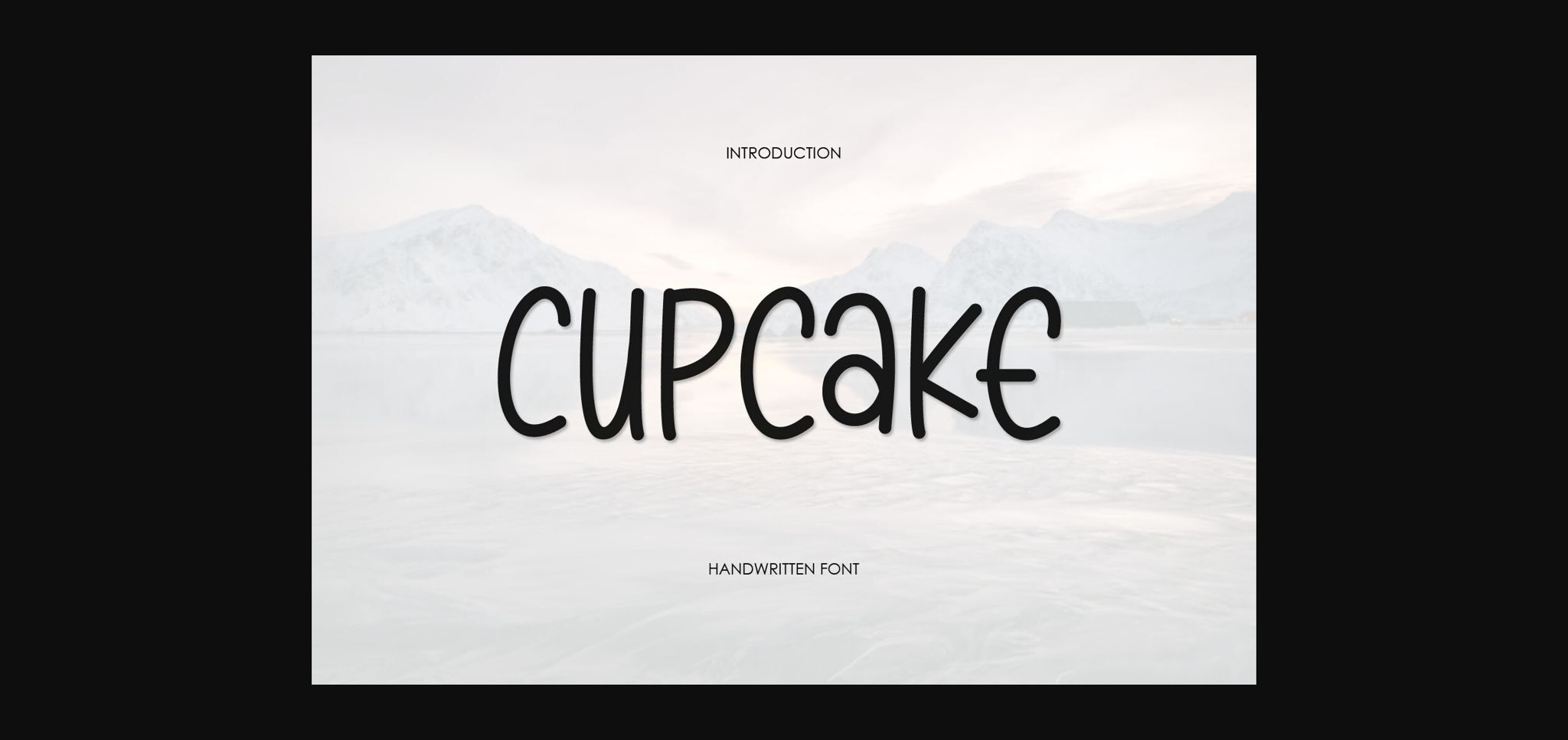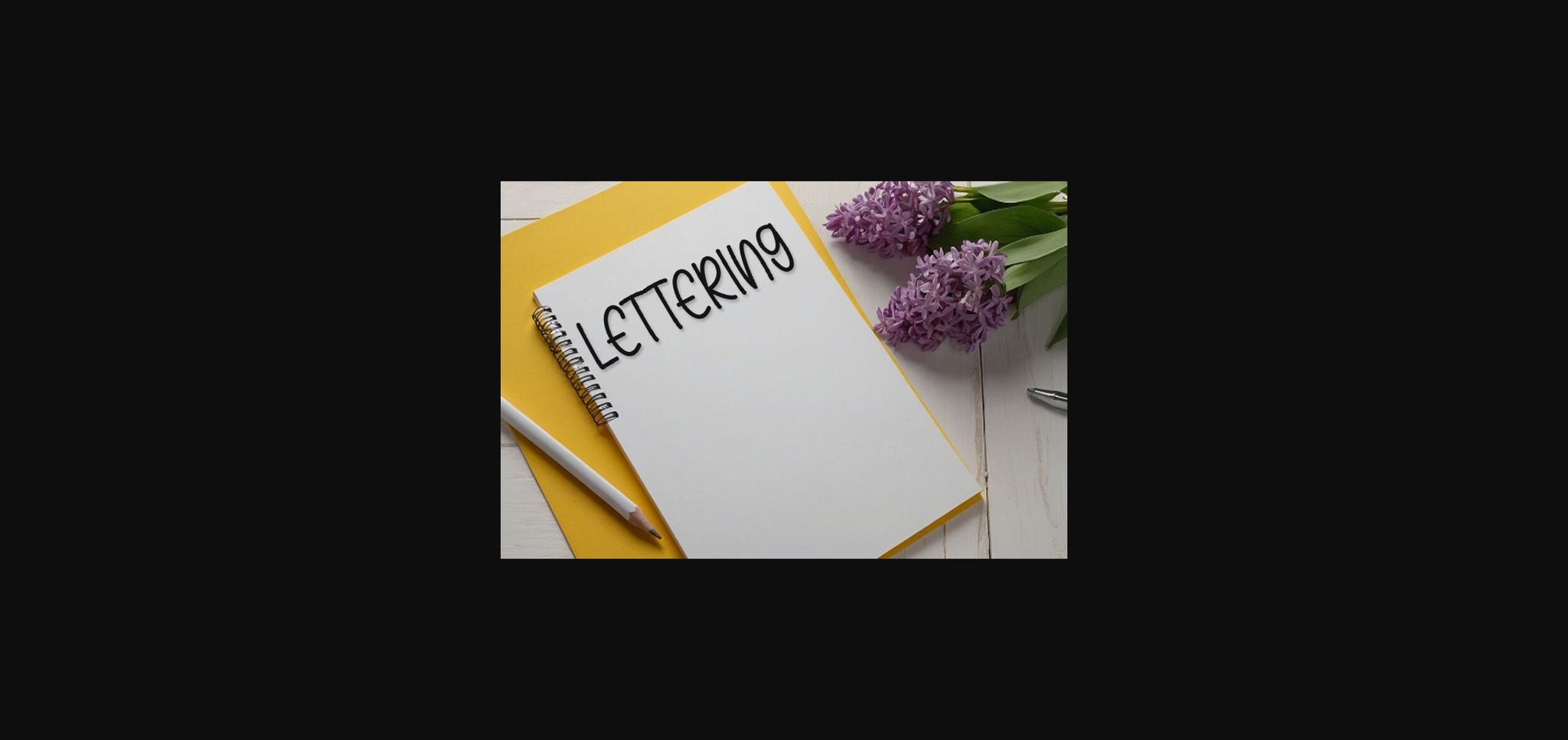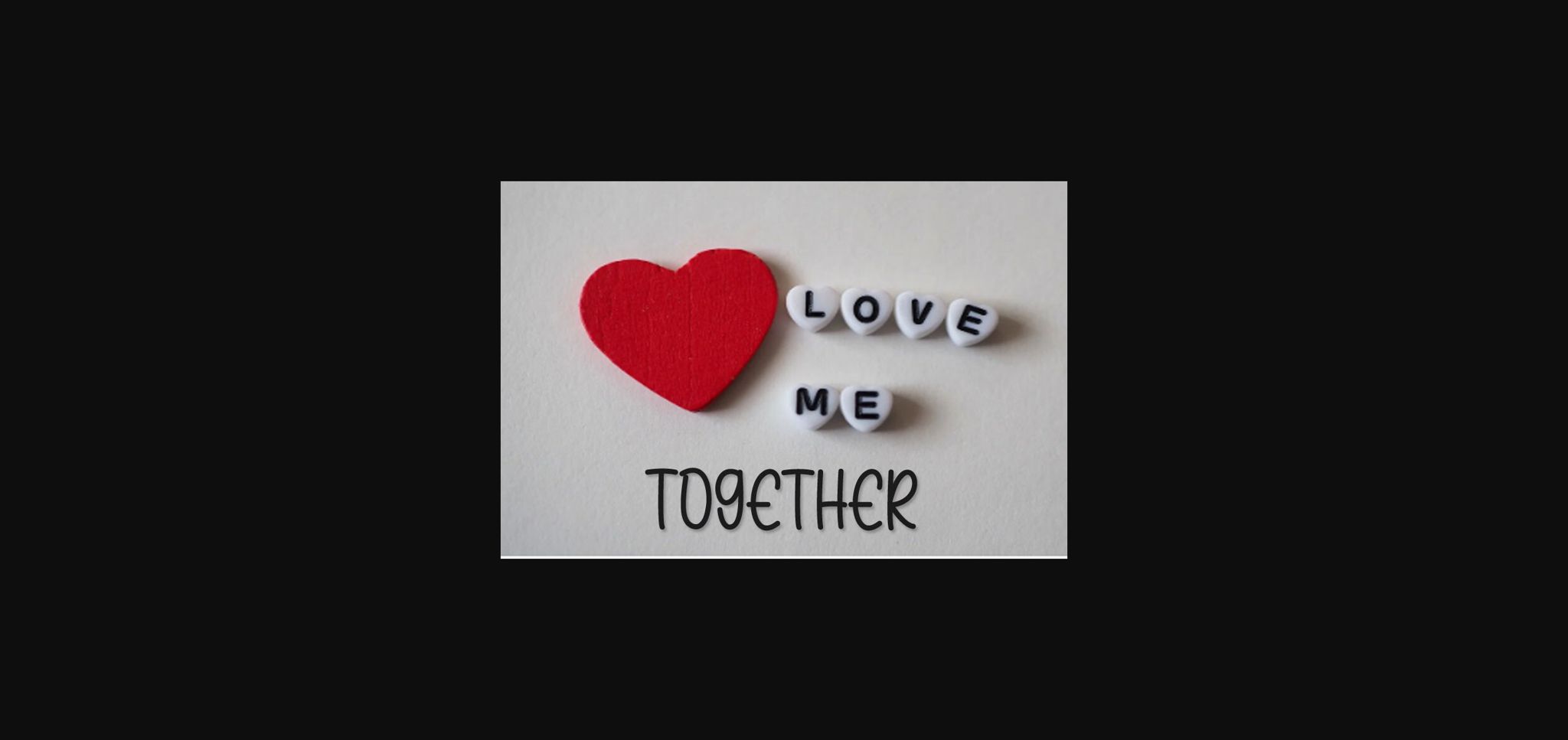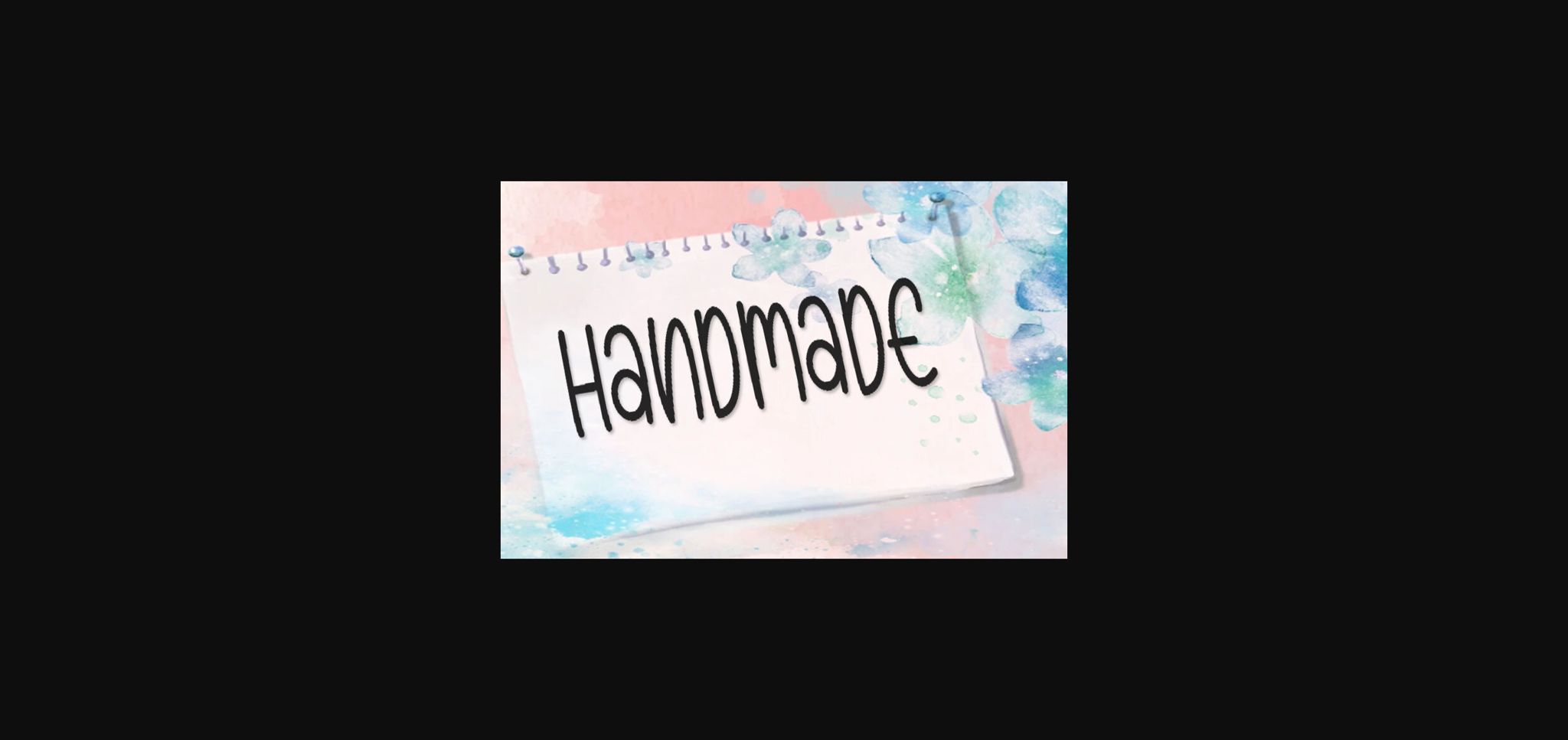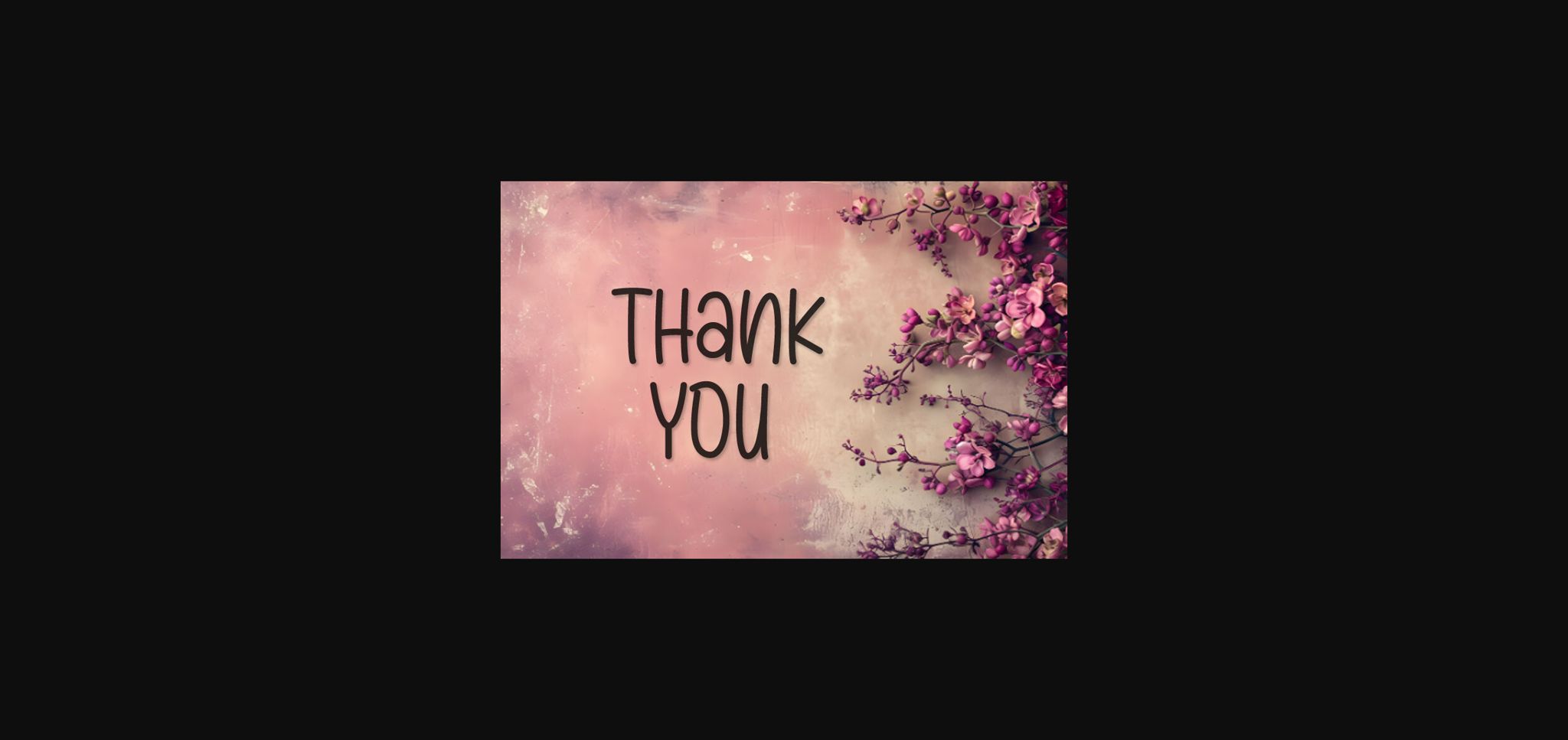
HomeSans Serif FontsCupcake Font Sans Serif Fonts Cupcake Font FacebookXPinterestWhatsApp 1 of 7 ... Cupcake Font Poster 2... Cupcake Font Poster 3... Cupcake Font Poster 4... Cupcake Font Poster 5... Cupcake Font Poster 6... Cupcake Font Poster 7... About Cupcake Font Cupcake is a playful and cute sans-serif font. Add it to your creative projects and you will love the results! DOWNLOAD NOW People also explored Hermenetics Font Graduation Day Font Grump Cherry Pop Font Chesalova Font Butter Font Habiby – Lovely Heart Script Font Blankco Light Font Croosez Font 277 0 TagsCupcakeCupcake Font Previous articleHappy Forever FontNext articleBollity Font LEAVE A REPLY Cancel reply Comment: Please enter your comment! Name:* Please enter your name here Email:* You have entered an incorrect email address! Please enter your email address here Website: Save my name, email, and website in this browser for the next time I comment. Personal Use Free Adriator Personal Use Free Read more about this font Monogram Calligraphy Personal Use Free Read more about this font Milda Personal Use Free Read more about this font December Christmas Personal Use Free Read more about this font BLOG 5 Fonts That Will Dominate Design Trends in 2026 5 Fonts for 2026 That Will Dominate Design Trends Typography plays a critical role in visual communication, and as we look ahead to 2026, it’s... How to Install and Use Fonts on Windows, macOS, and Web Projects Exploring Font Trends Where to Buy American Fonts Online in 2024